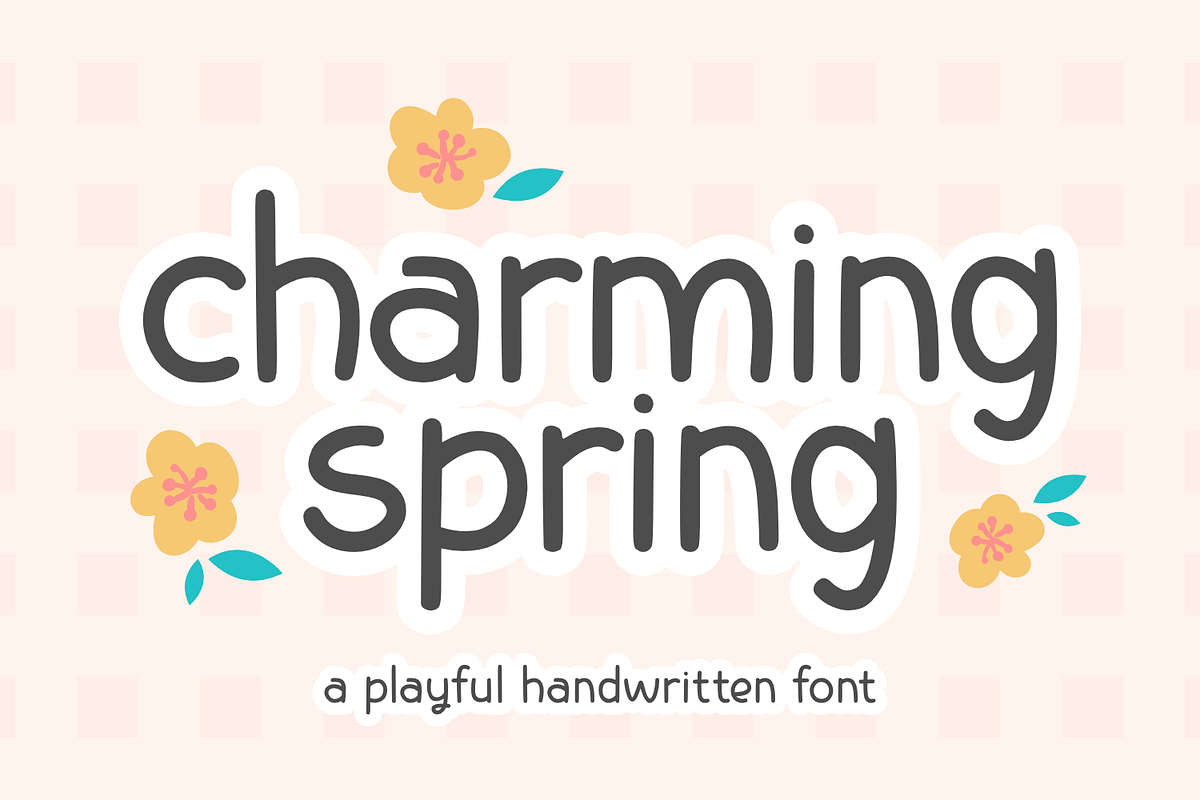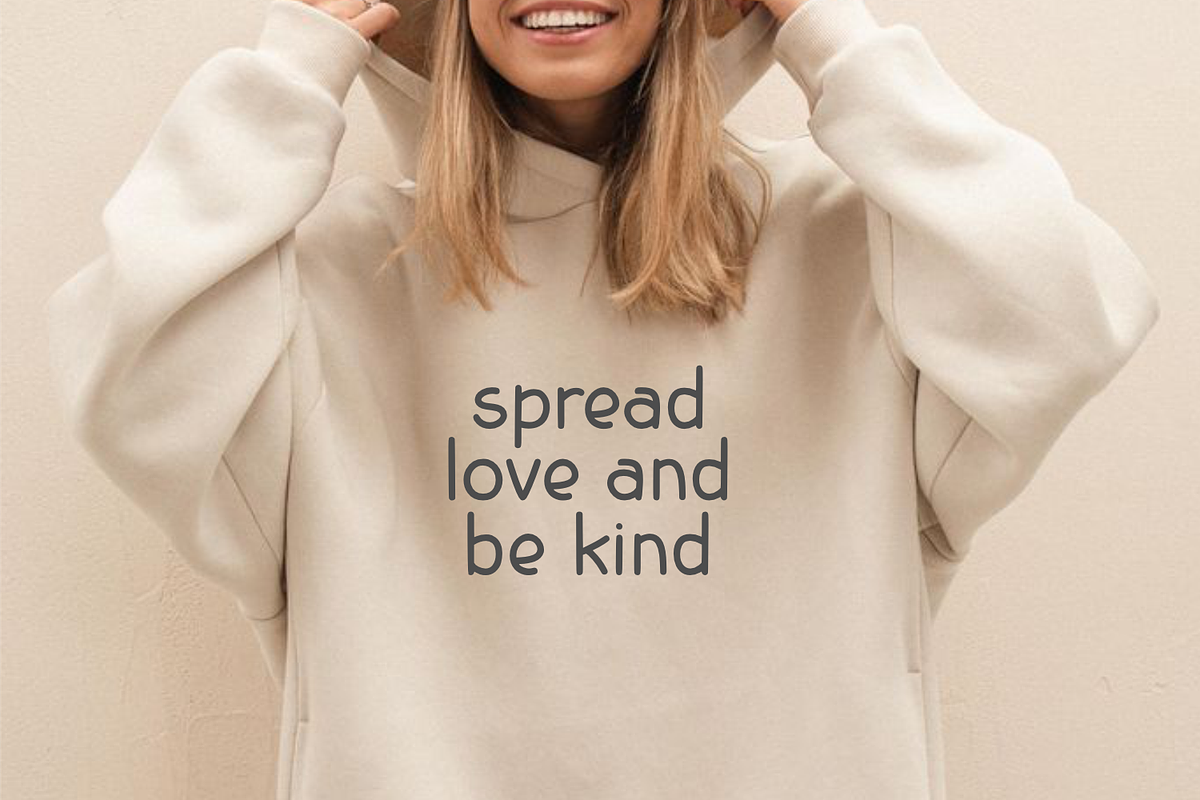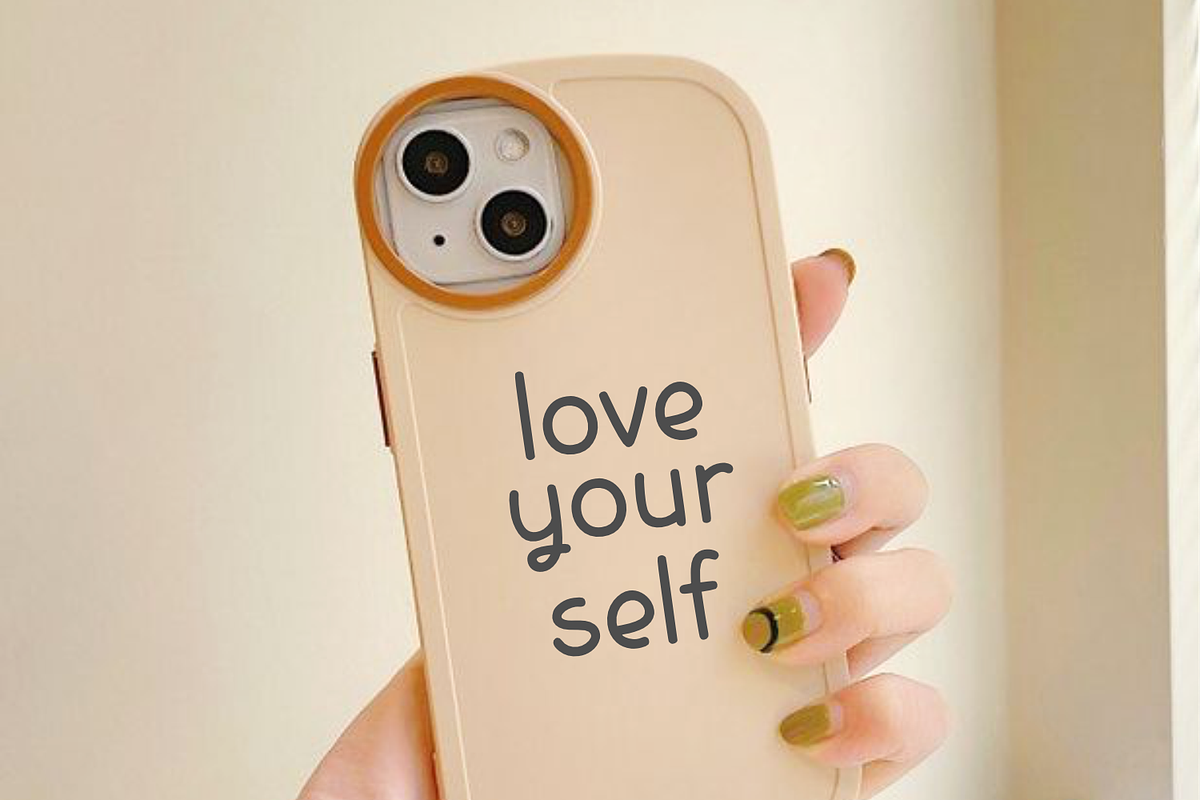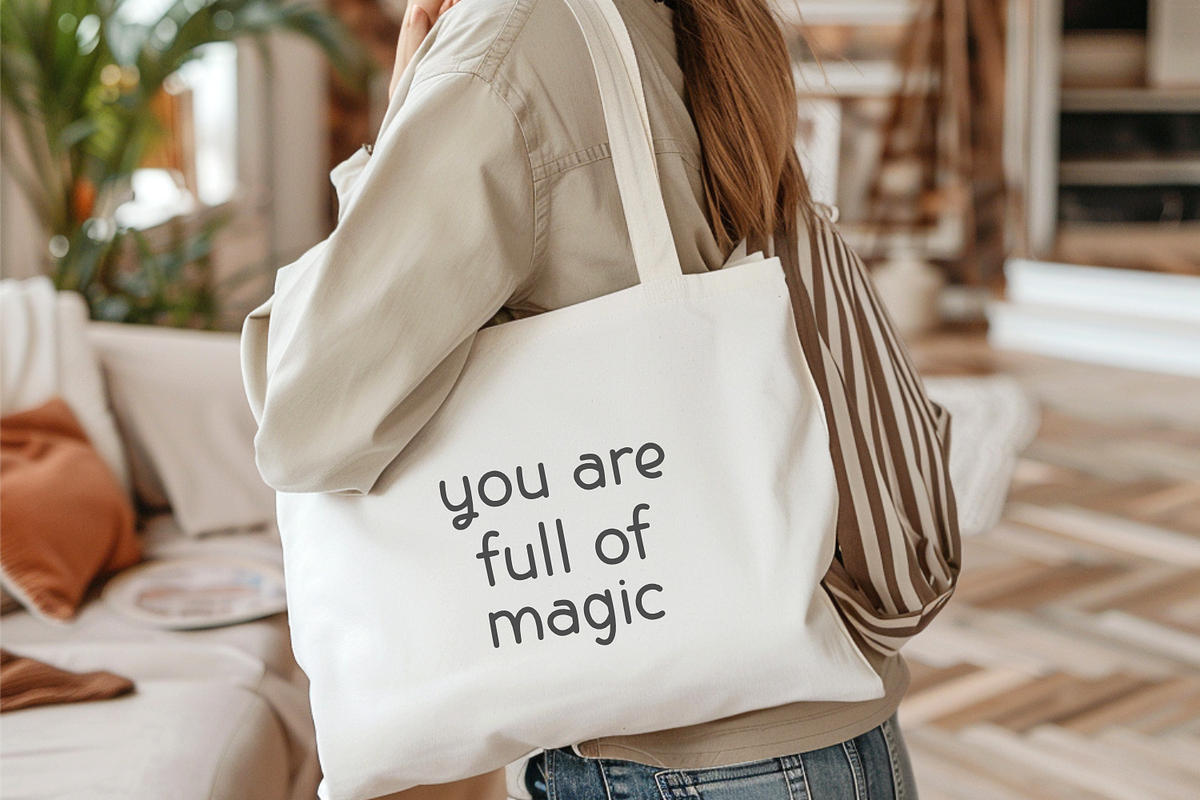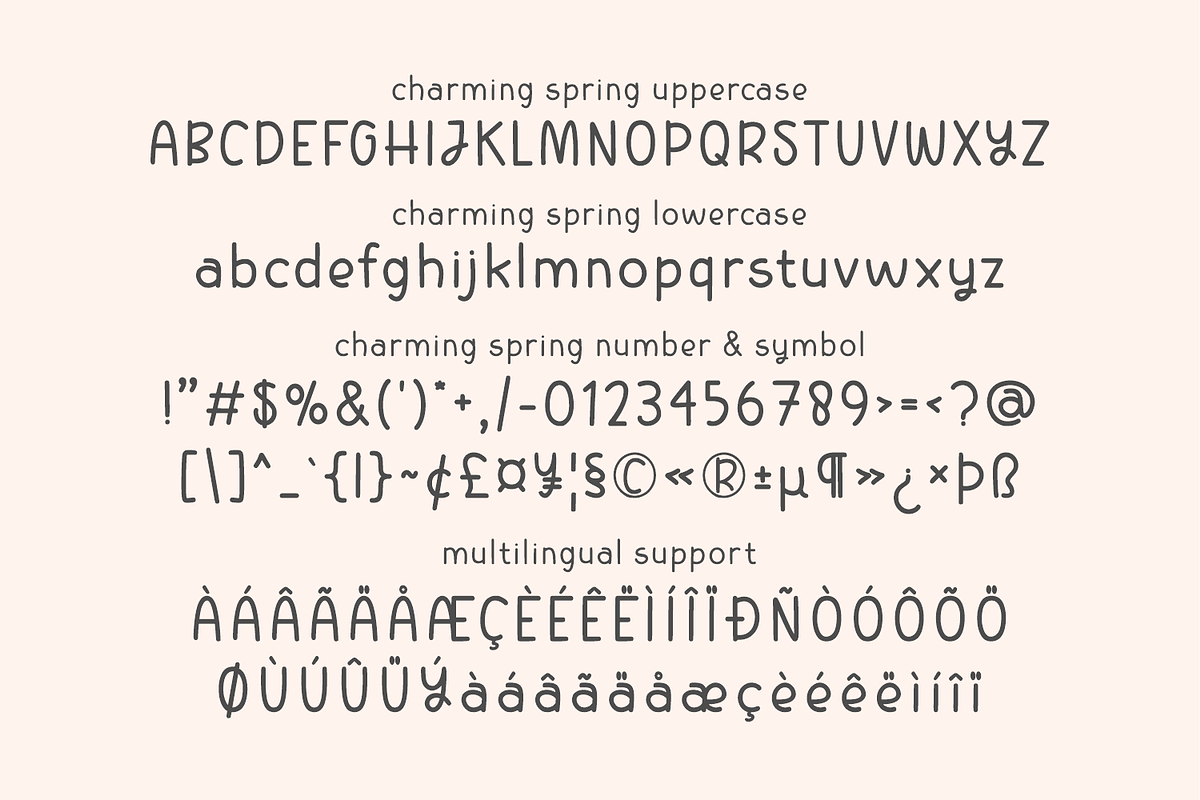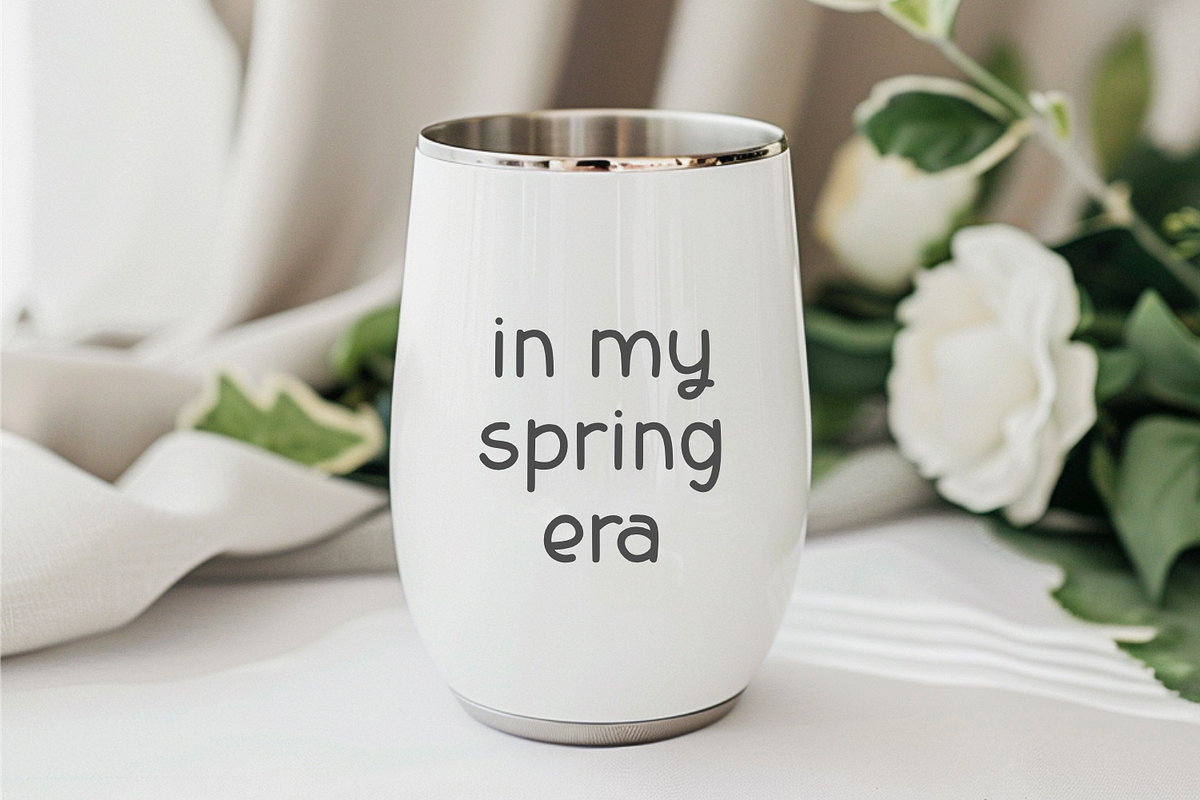
Charming Spring - Playful Kids Font
Charming Spring is a playful handwritten font, this font has a cheerful and energetic handwriting style, as if written by an excited child. Each letter has a round and soft shape, with slight imperfections that add to the natural and adorable impression. With cute curves and slightly unusual proportions, this font gives a unique and entertaining touch to each word. Perfect for designs that want to stand out and attract attention
Charming Spring ideal for designs that want to convey a cheerful message, such as spring greeting cards, garden party invitations, or family event posters. It is also suitable for children’s product designs, snack brand logos, or spring-themed social media content.